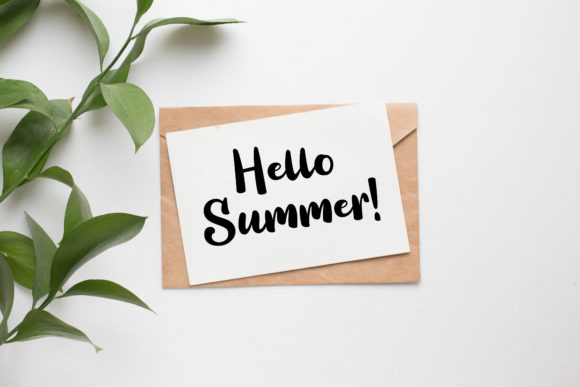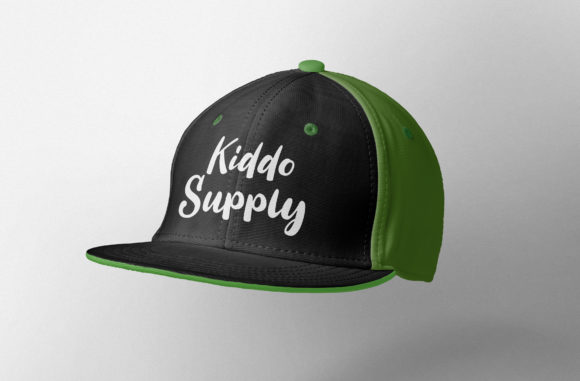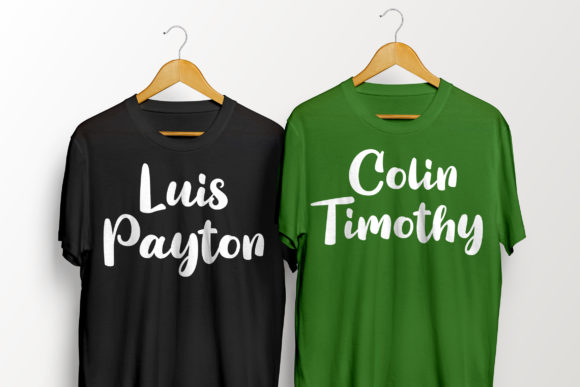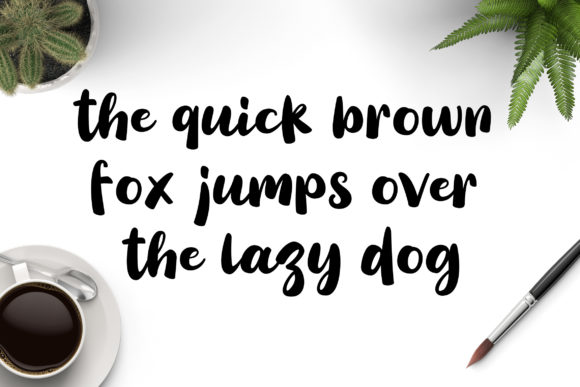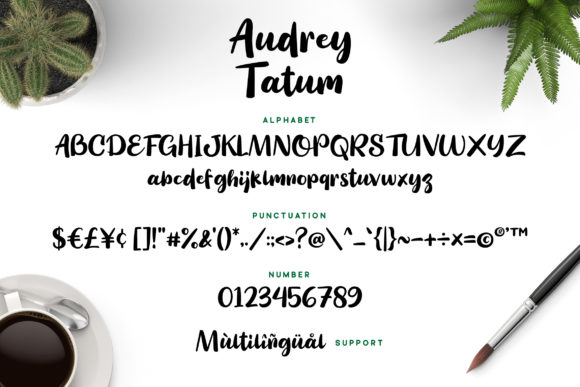
Discover the Perfect Blend of Playfulness and Sophistication with Audrey Tatum Font
Have you ever been browsing through a design blog or Pinterest, and suddenly, you stumble upon a project that sparks your creativity? Maybe it’s the way the words are arranged, the colors used, or the font that catches your eye. For me, it’s often the font that sets the tone for the entire design. Recently, I discovered Audrey Tatum Font, and I couldn’t wait to dive in and explore its unique character.
Audrey Tatum Font is a modern and playful handwritten font that’s perfect for designers looking to add a cool twist to their projects. With its effortless charm and versatility, this font is ideal for everything from branding and advertising to editorial and digital content. Whether you’re a seasoned designer or just starting out, Audrey Tatum Font is a valuable addition to your toolkit, offering endless possibilities for creative expression.
- Font Family: Audrey Tatum
- Font Type: Script
- Unique Characteristics: Elegant, cursive script with a touch of vintage charm, ideal for creative projects, invitations, and wedding designs
Audrey Tatum Font Review
Overall, I think the Audrey Tatum font has some great qualities, but also some areas where it falls short. ✨ Let’s start with the good stuff!
- ✨ Beautiful, elegant script style: The Audrey Tatum font has a lovely, flowing feel that’s perfect for adding a touch of sophistication to your designs.
- ✨ Wide language support: The font supports a wide range of languages, making it a great option for international projects.
Now, onto the not-so-good stuff. ⚠️
- ⚠️ Limited font weights: While the font has a nice, elegant feel, it’s only available in a few different weights. This might limit its versatility in certain design projects.
- ⚠️ Some characters may not render well: In my testing, I noticed that some characters (like the numeral ‘1’) didn’t render as smoothly as others. This might be a problem in certain design contexts.
Overall, I think the Audrey Tatum font is a solid choice for designers who want to add a touch of elegance to their projects. While it has some limitations, its beautiful script style and high-quality vector files make it a great option for the right projects.
Tips for Getting the Most Out of the Audrey Tatum Font
The Audrey Tatum font is a beautiful, elegant script font that works well for various design projects. To get the most out of it, try using it for:
Remember to pair the Audrey Tatum font with a clean, simple font to create a balanced and visually appealing design.
Alternatives to Audrey Tatum Font
Playfair Display is a high-end serif font that exudes elegance and sophistication. It’s ideal for use in luxury branding, high-end fashion, and premium product packaging. It’s more ornate and luxurious compared to Audrey Tatum Font, which makes it perfect for special occasions and events.
Great Vibes is a modern script font that adds a touch of whimsy and playfulness to your designs. It’s great for use in creative projects, social media graphics, and event invitations. Unlike Audrey Tatum Font, Great Vibes is more casual and relaxed, making it perfect for younger audiences.
Pacifico is a beautiful script font that’s perfect for use in travel and adventure branding, outdoor activities, and eco-friendly products. It’s more laid-back and casual compared to Audrey Tatum Font, which makes it ideal for use in beach-inspired and bohemian designs.
What is the recommended font size and line height for the Audrey Tatum Font?
The recommended font size for the Audrey Tatum Font is between 12pt and 24pt. For optimal readability, we recommend a line height of at least 1.5 times the font size. For example, if you’re using a 14pt font size, set the line height to at least 21pt.